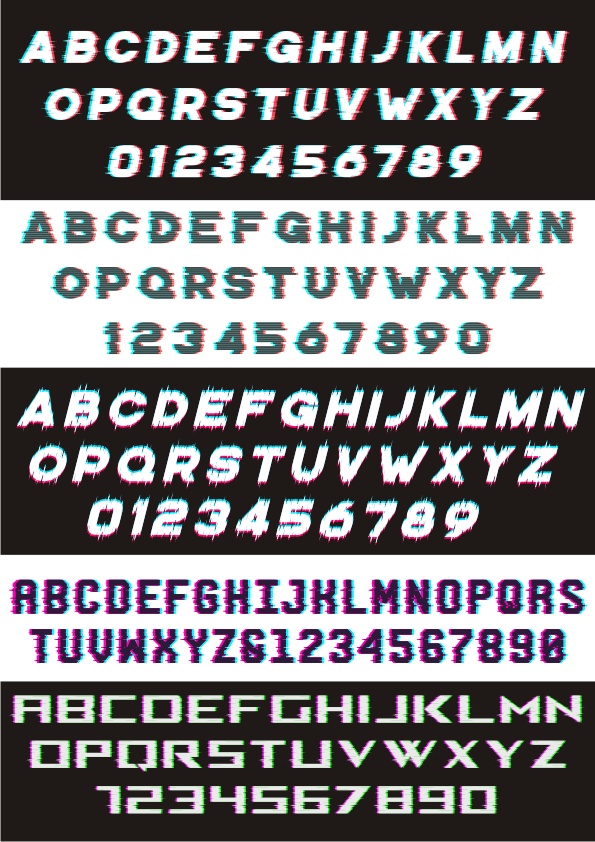
Glitch Distorted Alphabet and Numeric Font Styles Free Vector
Set of uppercase alphabet letters and numbers featuring glitch and distorted effects in various font styles, designed in a digital retro aesthetic with multiple color contrasts and background options.